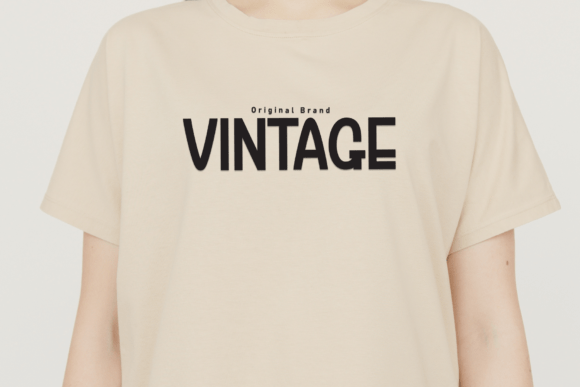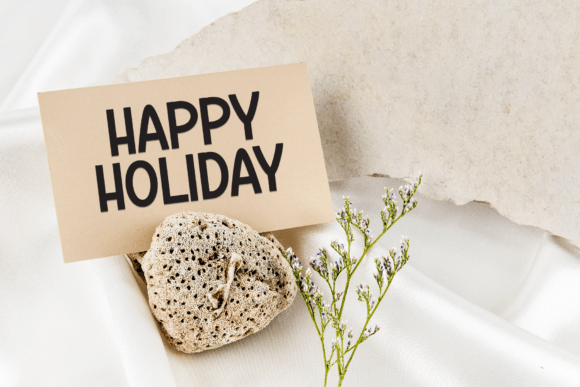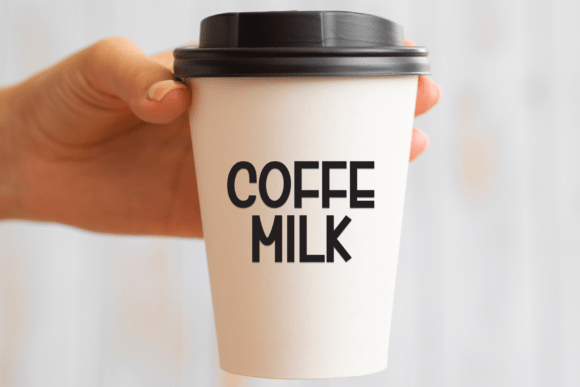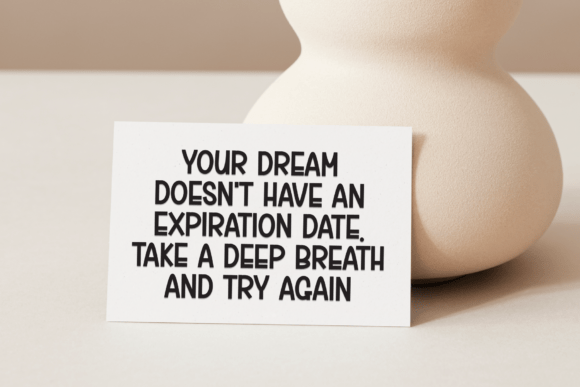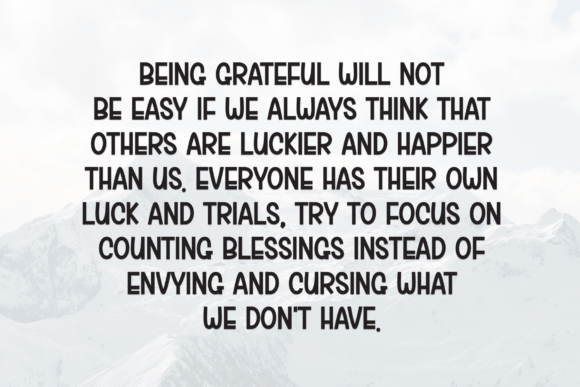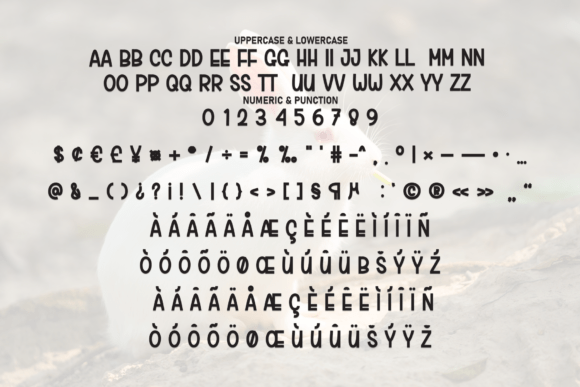
The Bunny Font: A Playful Game-Changer for Your Creative Projects
I’ll never forget the time I was working on a fun project for a children’s party invitation. I had the design concept nailed, but I just couldn’t find the right font to bring it all together. The invitation needed to be playful, yet still convey a sense of excitement and energy. That’s when I stumbled upon the Bunny font. It was like a breath of fresh air – its bold, approachable letterforms immediately captured the vibe I was going for. In this article, I’ll share my experience with the Bunny font, its features, and how you can make the most of it in your creative projects.
My Honest Review of Bunny Font
• ✨ Easygoing style: Bunny font effortlessly captures a sense of fun and spontaneity, making it perfect for creative projects that need a playful touch.
• ✅ Bold and approachable: The font’s bold letterforms make it ideal for headlines, posters, and branding, grabbing attention without being too overwhelming.
• 💡 Versatile: Bunny font works well with a variety of design styles, from modern to vintage, and can be used for both digital and print projects.
While the Bunny font is amazing, there are a few things to keep in mind:
• 🤔 Limited use in formal contexts: Due to its playful nature, the Bunny font might not be the best fit for formal or professional projects, such as business reports or academic papers.
• ⚠️ Legibility at small sizes: Like many display fonts, Bunny might not be the most legible at very small sizes, so it’s best used for headlines or titles rather than body text.
A Practical Guide to Using Bunny Font
The Backstory of Bunny Font
The Bunny font was created with the intention of bringing a sense of fun and spontaneity to design projects. Its designer aimed to craft a font that was both bold and approachable, perfect for headlines, posters, and branding. While the exact details of the font’s creation might be shrouded in mystery, its playful vibe and versatility have made it a favorite among designers and hobbyists alike.
Q: What type of projects is the Bunny font best suited for?
A: The Bunny font is ideal for creative projects that require a playful touch, such as children’s party invitations, posters, and branding for creative businesses.
Q: Is the Bunny font suitable for body text?
A: While the Bunny font can be used for short paragraphs, it’s primarily designed as a display font and might not be the most legible for longer body text.